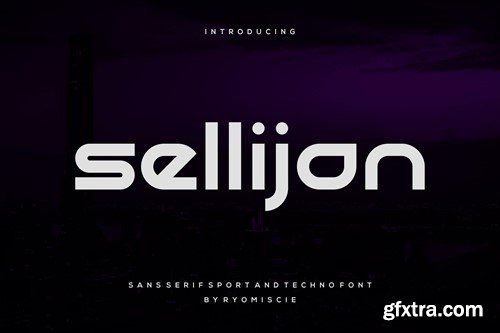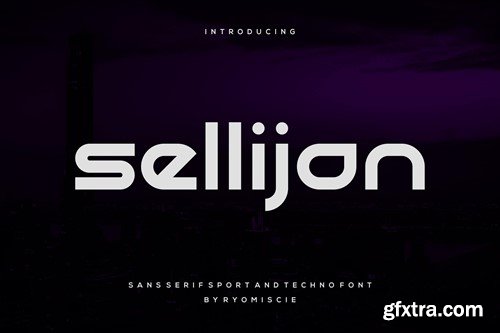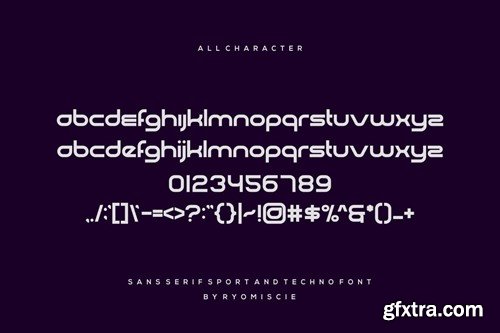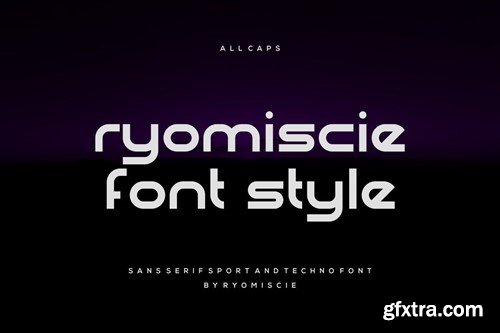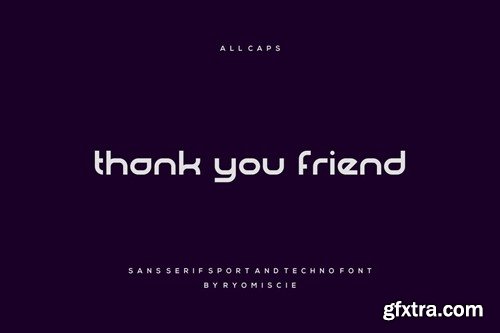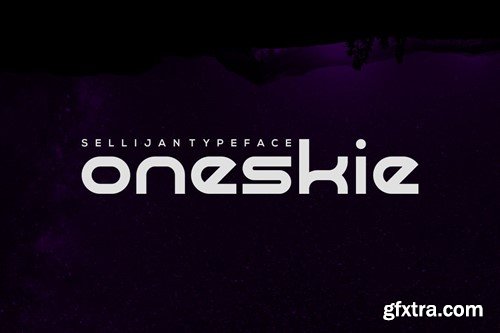
Sellijan - Sans Serif Sport And Techno Font
Introducing our new product Sellijan - Sans Serif Sport And Techno Font Sellijan - Modern Font is a bold and authentic display font. The font is suitable for any branding project like logo, t-shirt printing, esport, and many more. outstanding in a wide range of contexts. availlable